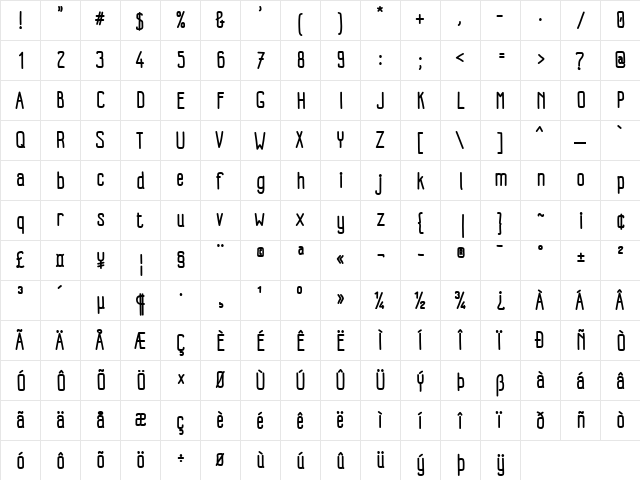
Impreciso free Regular
Design Context for Impreciso free Typeface
Impreciso free is a composed and adaptable typeface that performs quietly and consistently across a wide range of design contexts.